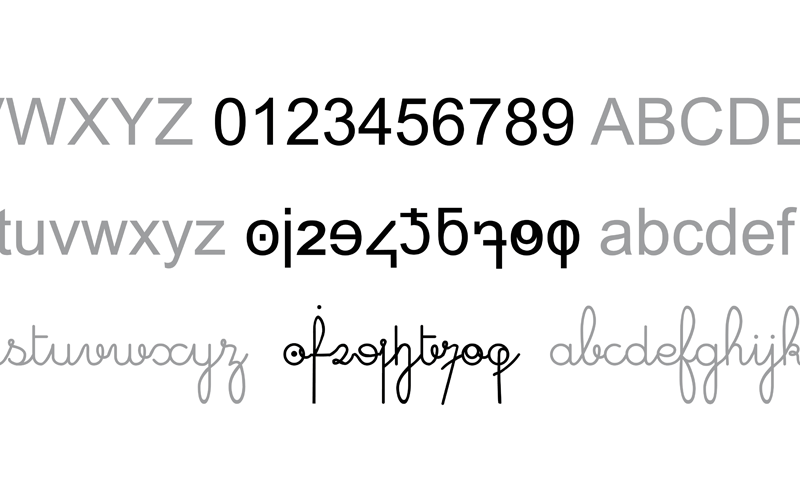
Шрифт Minuscule Digits
minuscule digits
creation of minuscule digits and cursive digits
why the numbers don't have lower case and cursive?
chiffres minuscules
création de chiffres minuscules et chiffres cursives
pourquoi les chiffres n'ont pas de miniscules et de cursives ?
THIS IS NOT A NEW FONT, IT'S A NEW WAY TO WRITE
CECI N'EST PAS UNE NOUVELLE TYPO, C'EST UNE NOUVELLE FACON D'ECRIRE